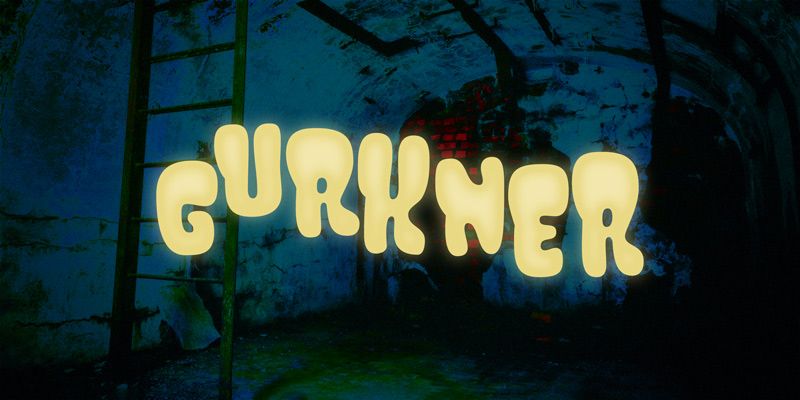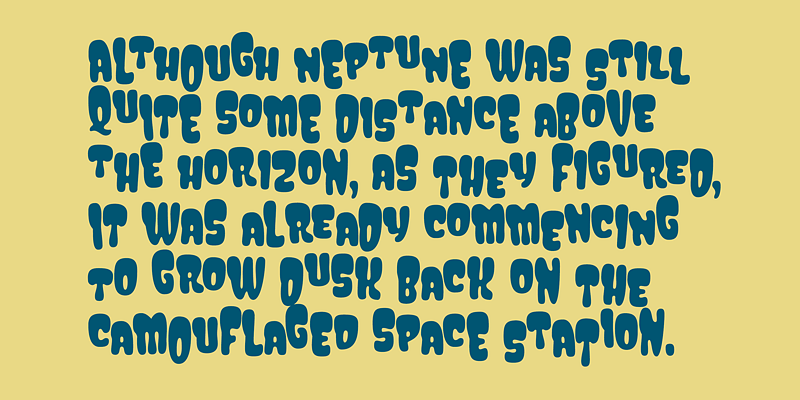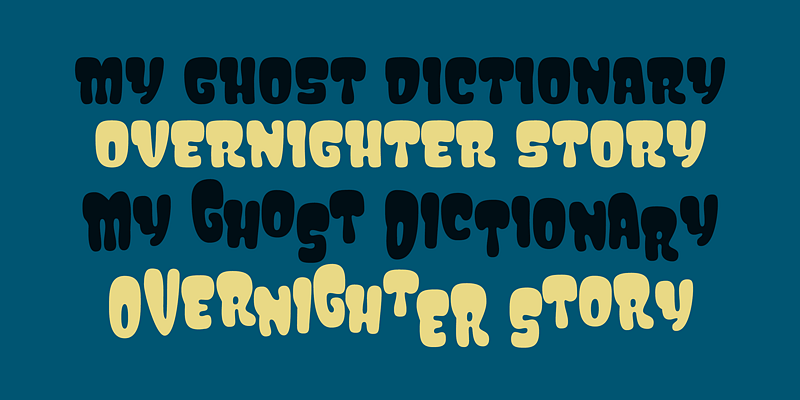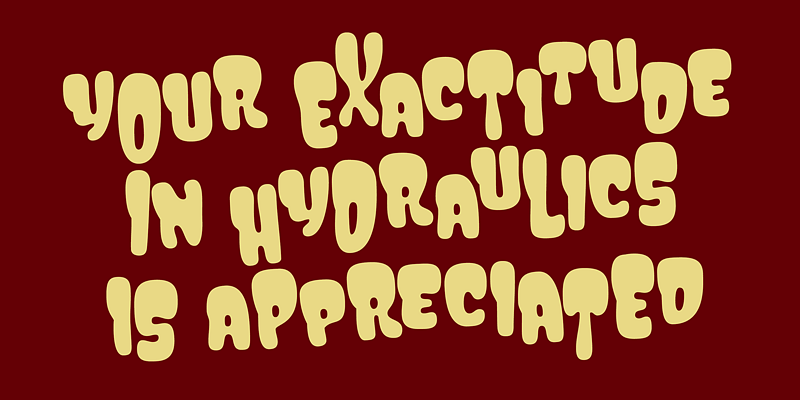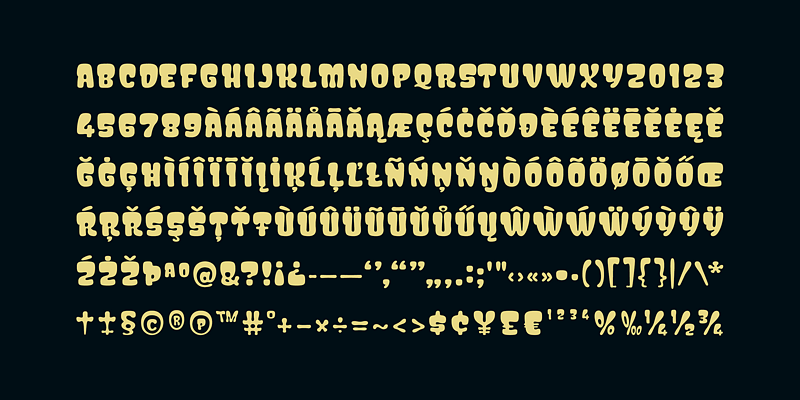
Gurkner Jump makes plump capitals bob above and below the baseline. The uneven rhythm turns a short name into a lively graphic without requiring each letter to be positioned by hand. It suits gummy sweets, playful wellness products, children’s events, toy packaging, and attractions built around motion and surprise. A flavour name or event title can carry the bouncing forms across cartons, posters, social graphics, and merchandise. Jump’s movement is its signature, especially in short words that give each shifting letter room to perform.